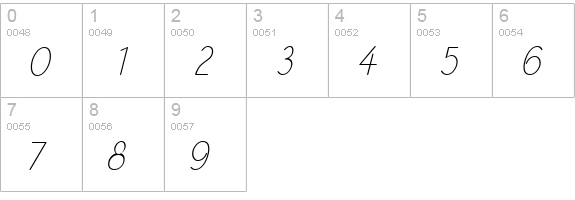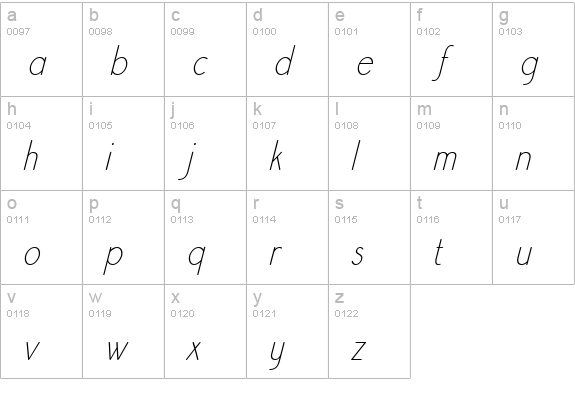
Register Sans BTN CnLt Oblique is a distinctive, italic variant in the Register typeface family \xE2\x80\x94 well suited to design and typography projects.
Register Sans BTN CnLt Oblique is a modern and sleek font that exudes elegance and professionalism. Its clean lines and subtle curves make it perfect for any project that requires a touch of sophistication. This font is ideal for both print and digital designs, as it seamlessly blends with various design elements. With a stylish oblique slant, Register Sans BTN CnLt Oblique adds a contemporary twist to traditional sans-serif fonts. It is versatile and can be used for a wide range of applications, such as headlines, body text, logos, and branding materials. Its legibility ensures that your message is easily conveyed to your audience. One of the best features of Register Sans BTN CnLt Oblique is that it is freely available to download at FontsMarket.com. This means that you can enhance your designs with this stunning font without any cost. FontsMarket.com is a reputable source for high-quality fonts, ensuring that you can trust the authenticity and reliability of this font. Whether you are a professional designer, a student, or simply someone who appreciates beautiful typography, Register Sans BTN CnLt Oblique is a must-have in your font collection. Its timeless appeal and effortless elegance will elevate your designs to new heights. Download this font today from FontsMarket.com and let your creativity soar.